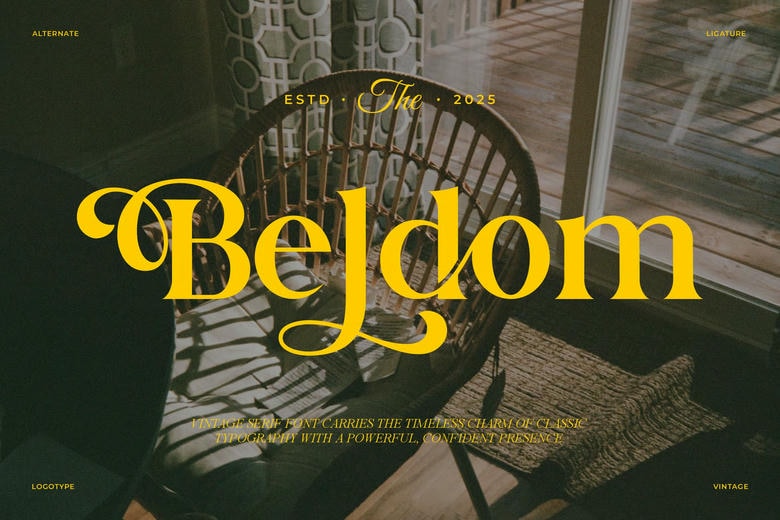
Beldom Font
Beldom is a vintage and classy font of all branding and logo designs. It is a very beautiful classy and vintage serif font. This typeface can be used in the design of invitation cards, cool logos, movie titles, movie names, business cards, book titles, brand names and other designs.
Beldom Serif is smoothing serif font that is sophisticated and momentous. This font is ideal to any project due to its trendy ligatures.
Beldom Serif Font